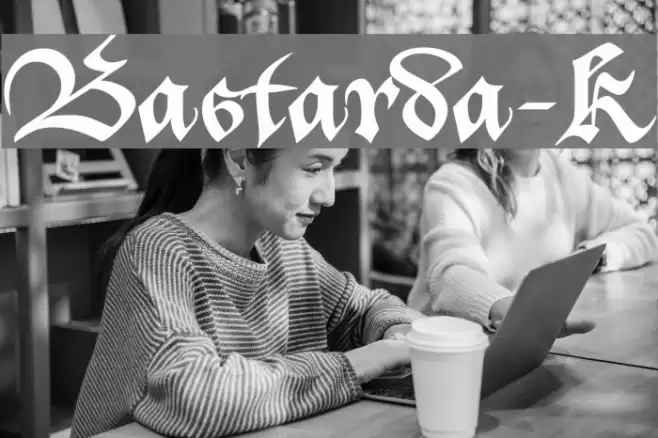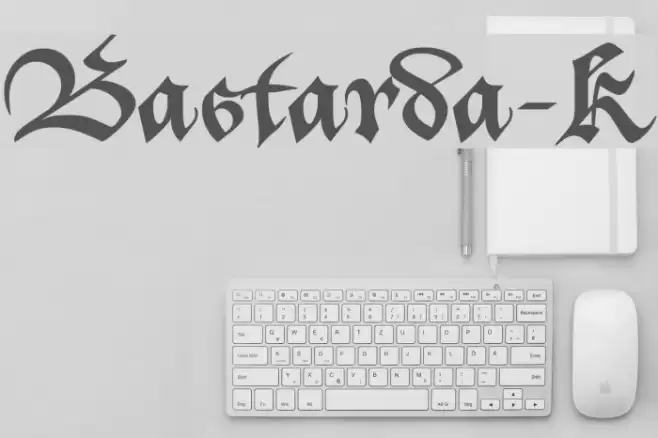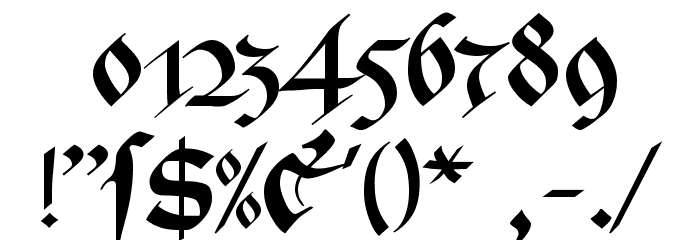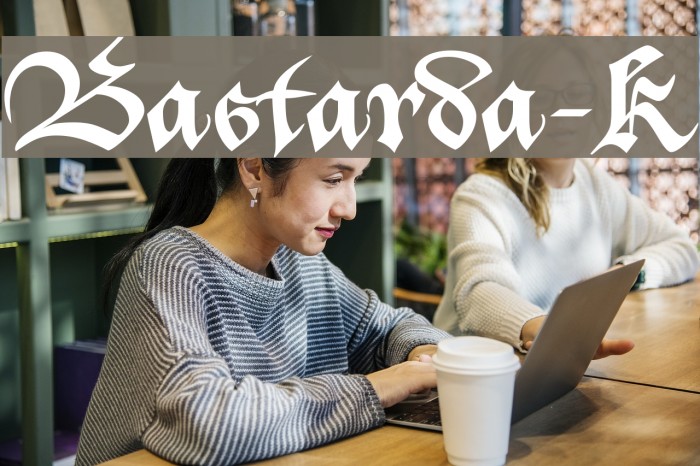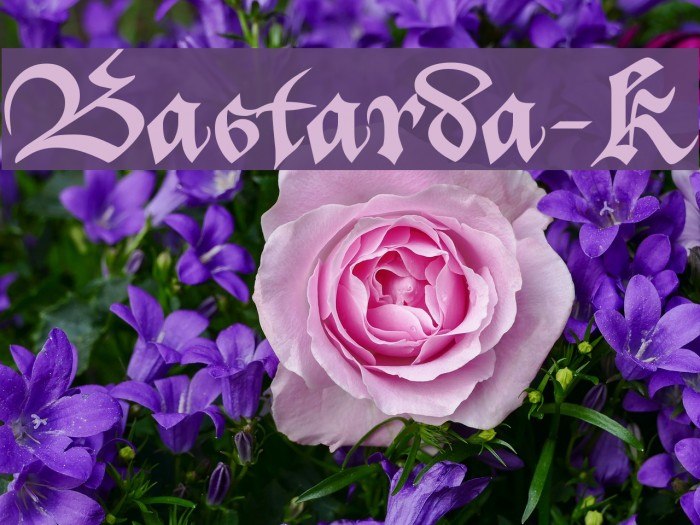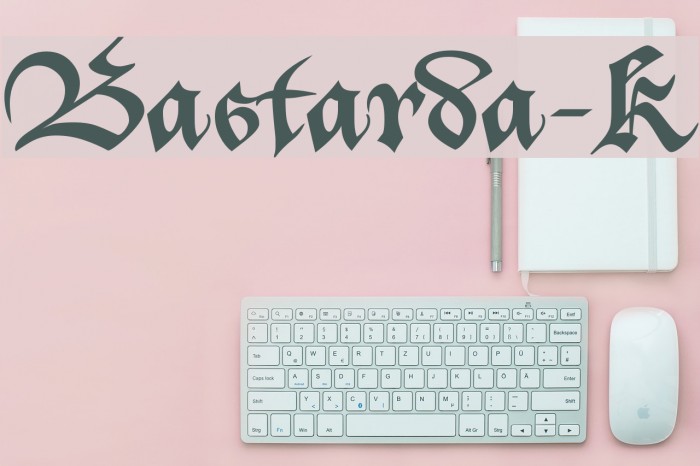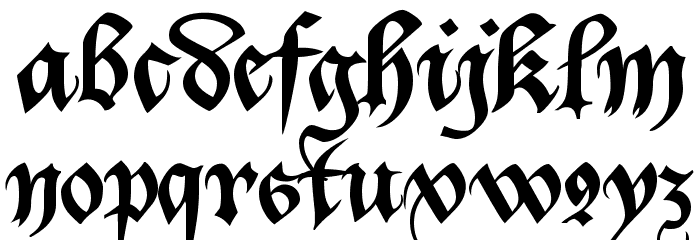
Bastarda-K Font
Bastarda-K Description
This font exhibits a distinct medieval and gothic style, characterized by its intricate and ornate letterforms. The uppercase letters feature sharp, angular lines with elaborate flourishes, while the lowercase letters maintain a consistent gothic aesthetic with a slightly more rounded appearance. The numerals and special characters are designed to match the overall style, incorporating similar decorative elements. The font's dramatic and historical appearance makes it suitable for projects that require a touch of elegance and tradition.
A gothic-style font with intricate, ornate letterforms and a medieval aesthetic from Gothic fonts.
- Proposed Projects: Ideal for historical documents, fantasy-themed designs, book covers, and decorative invitations.
- Overall Style: Vintage
- Use Case: Logos, Headlines, Decorative text